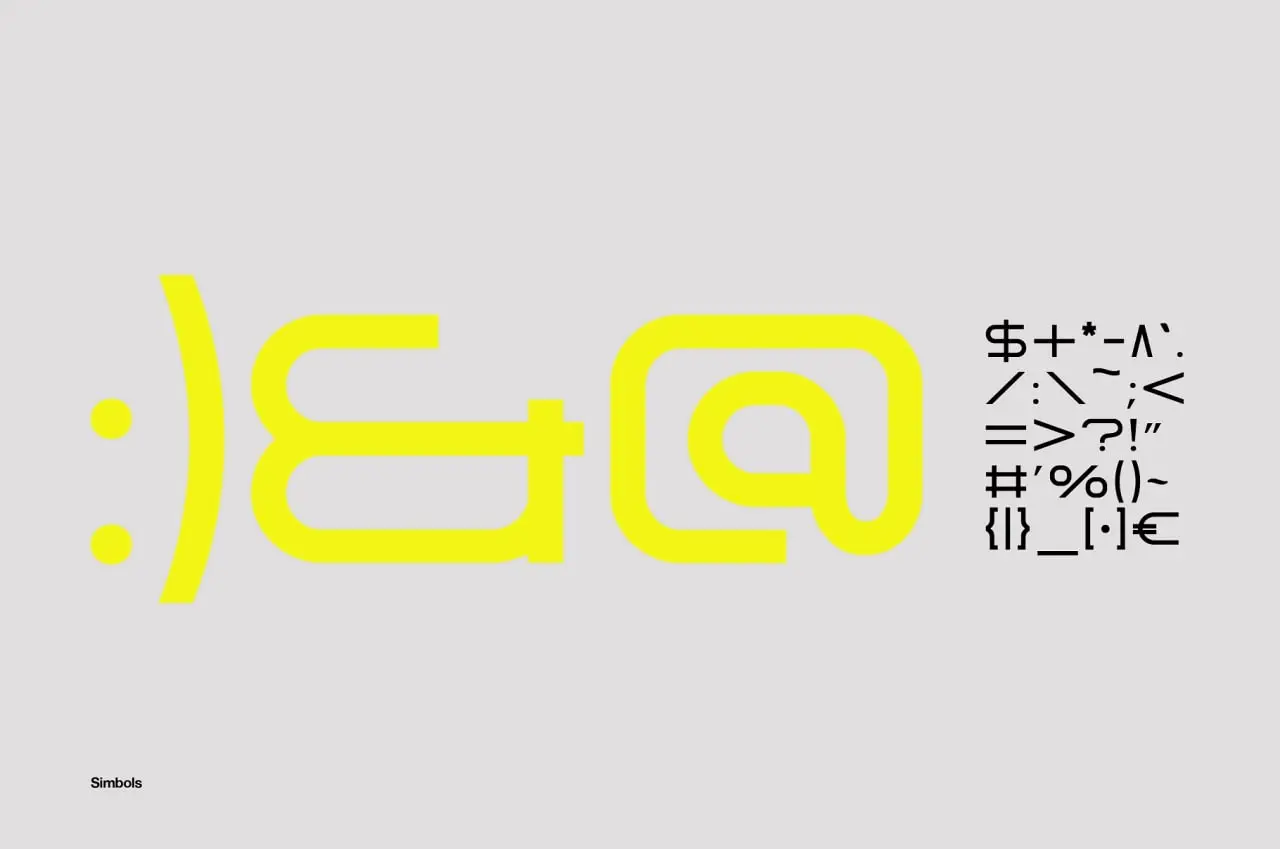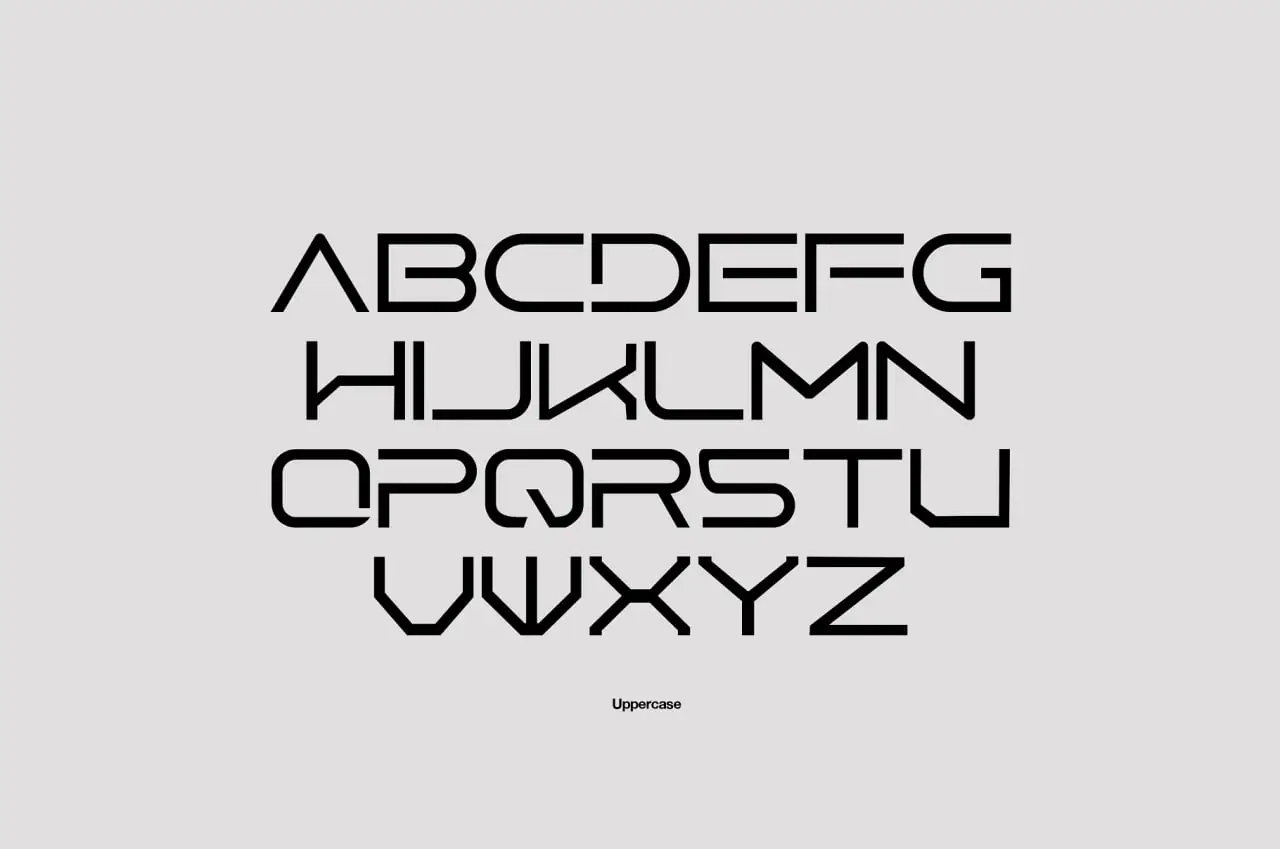
The Obsidian Font by Hipfonts is a modern typeface that combines elegance with versatility. This font is perfect for a variety of applications, from branding and logos to web design and print materials. Its clean lines and unique character make it an excellent choice for both professional and creative projects.
- Stylish and contemporary design
- Multiple weights for varied applications
- Supports a wide range of languages
- Weights: Regular, Bold, Italic
Utilize Obsidian Font for creating striking headlines, captivating logos, and engaging UI elements. Its versatility allows it to adapt seamlessly to both digital and print media.